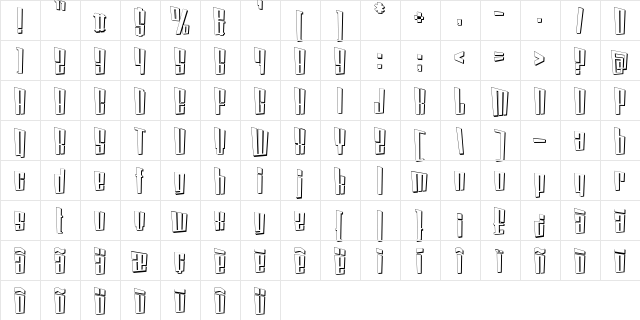
Coin Locker Datura Shadow Regular
Design Context for Coin Locker Datura Shadow Typeface
Coin Locker Datura Shadow is built around its visual character rather than neutral utility — its distinctive forms are designed to make an impression at display sizes.
Font Pairing: Pair with a clean neutral sans-serif for body copy to let Coin Locker Datura Shadow's character lead without overwhelming the composition.
Pro Tip: Use Coin Locker Datura Shadow exclusively at display sizes — it was designed to be seen, not read at length. Let a neutral companion handle body copy.